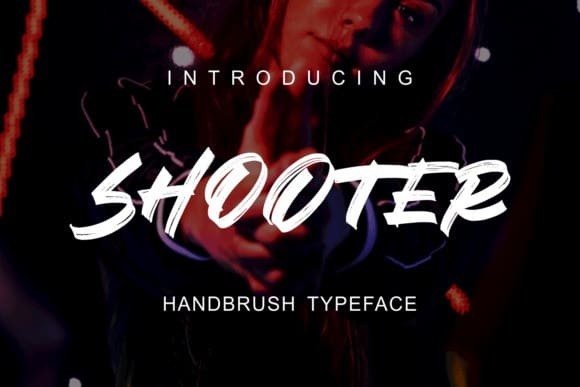
Shooter Brush Font
Shooter Brush Font, is a hand brush typeface. Get inspired by its simple, natural style and add it to your favorite designs! It is ideal for logos, handwritten quotes, product packaging, headers, posters, apparel, merchandise, social media & greeting cards.